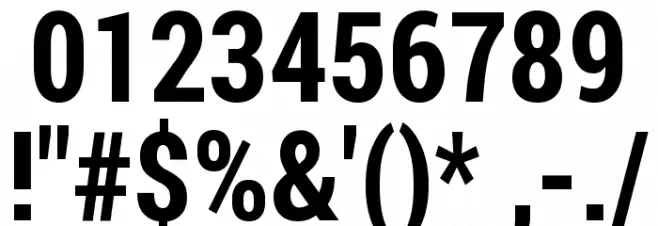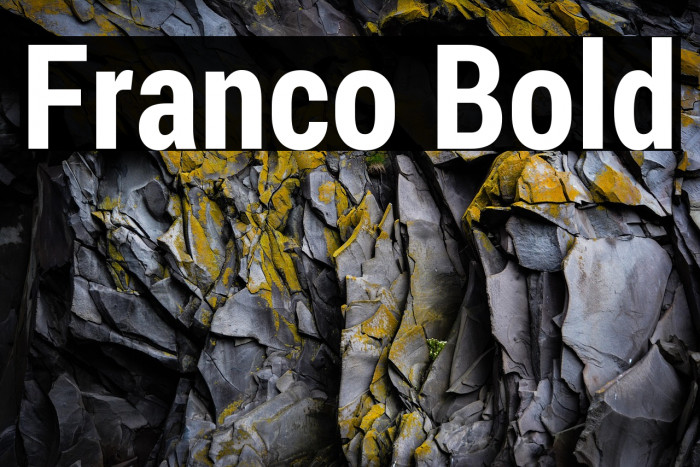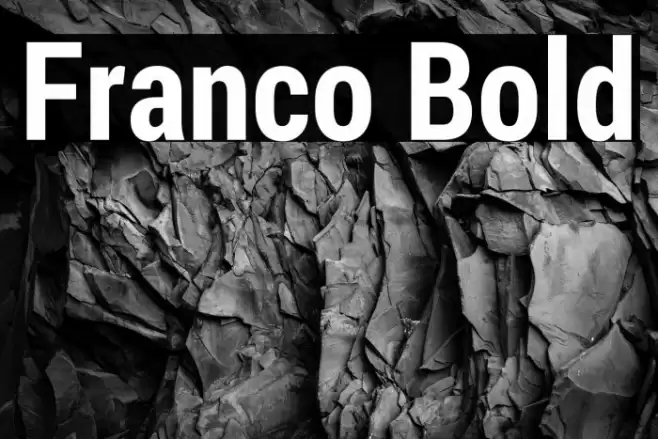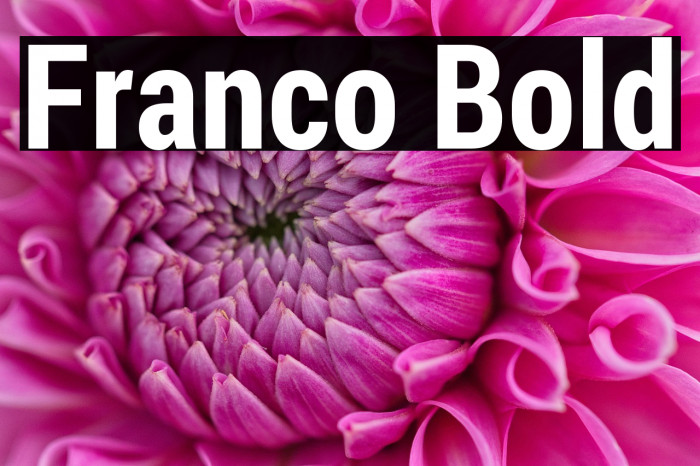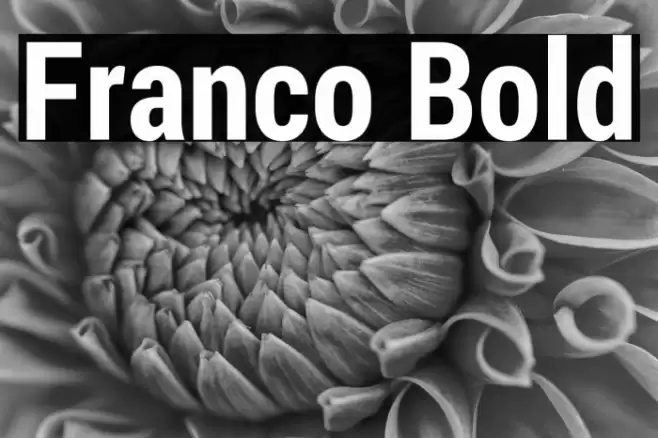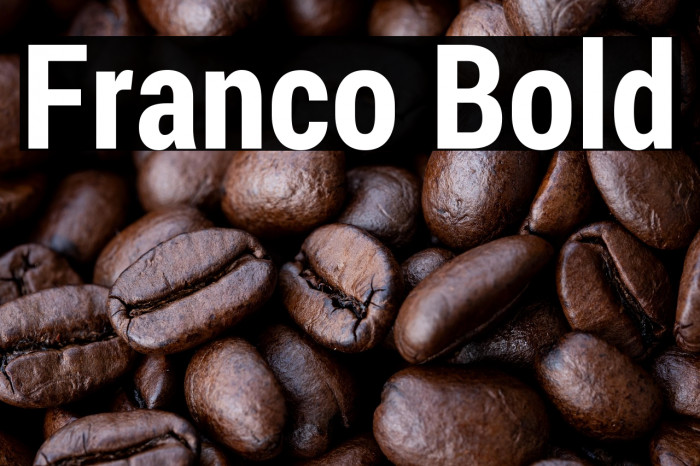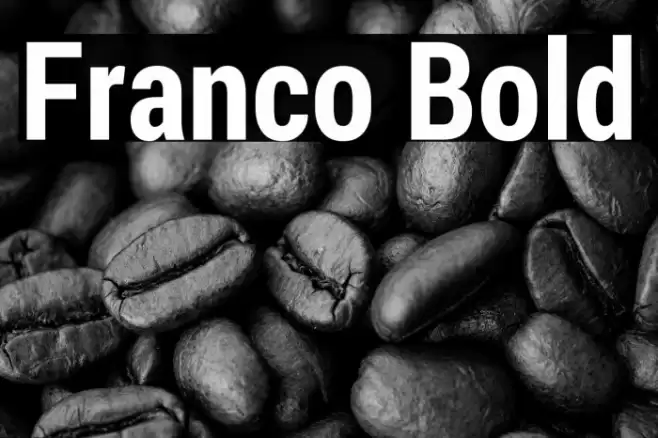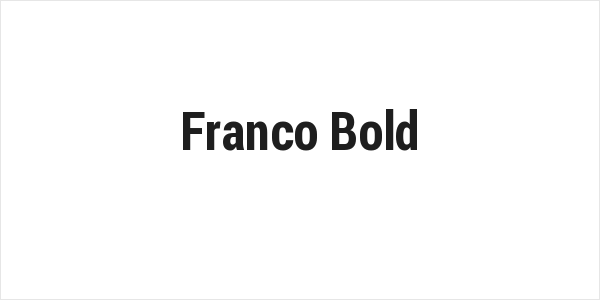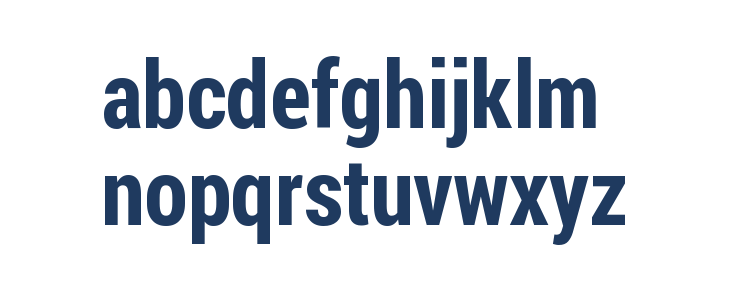
Franco Bold Font
Franco Bold Description
This font features a bold and assertive design, characterized by its thick strokes and strong presence. The uppercase letters are uniform in height, creating a cohesive and balanced look. The lowercase letters maintain a consistent style, with rounded edges that add a touch of softness to the otherwise robust appearance. The numerals are clear and easy to read, making them suitable for various applications. Special characters are well-integrated, ensuring versatility in design. Overall, this font exudes confidence and modernity, making it ideal for impactful headlines and branding.